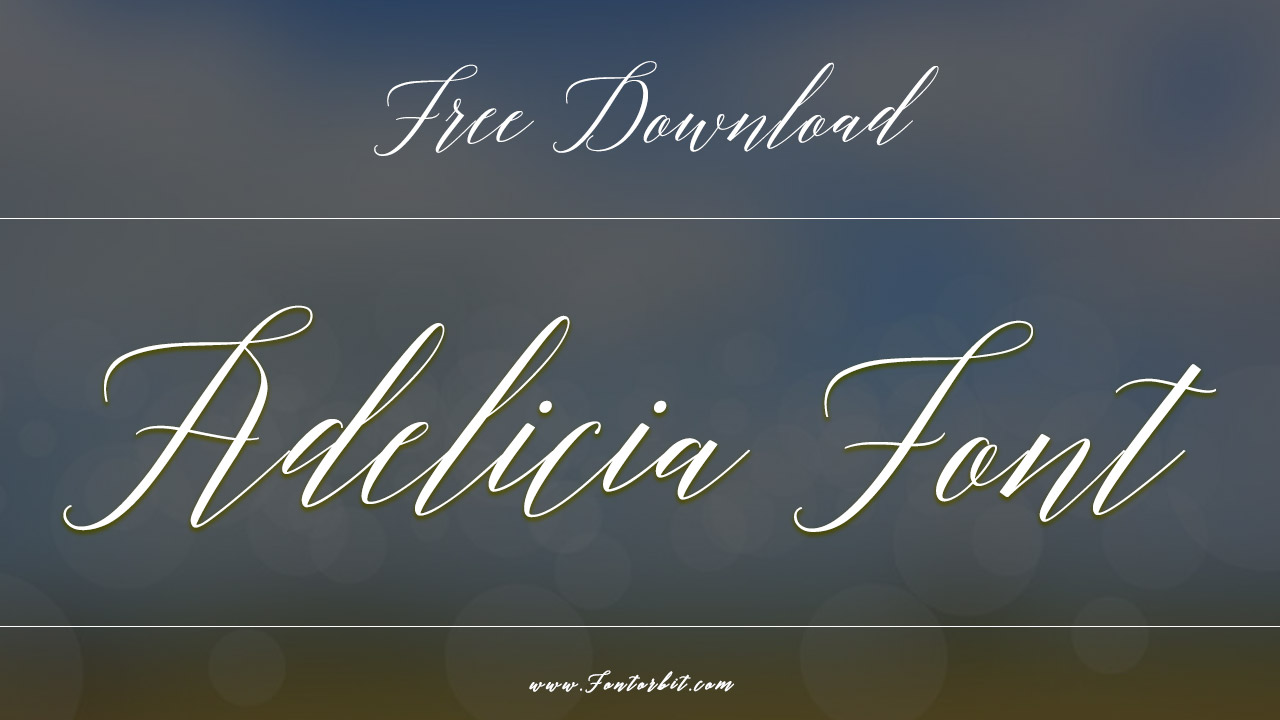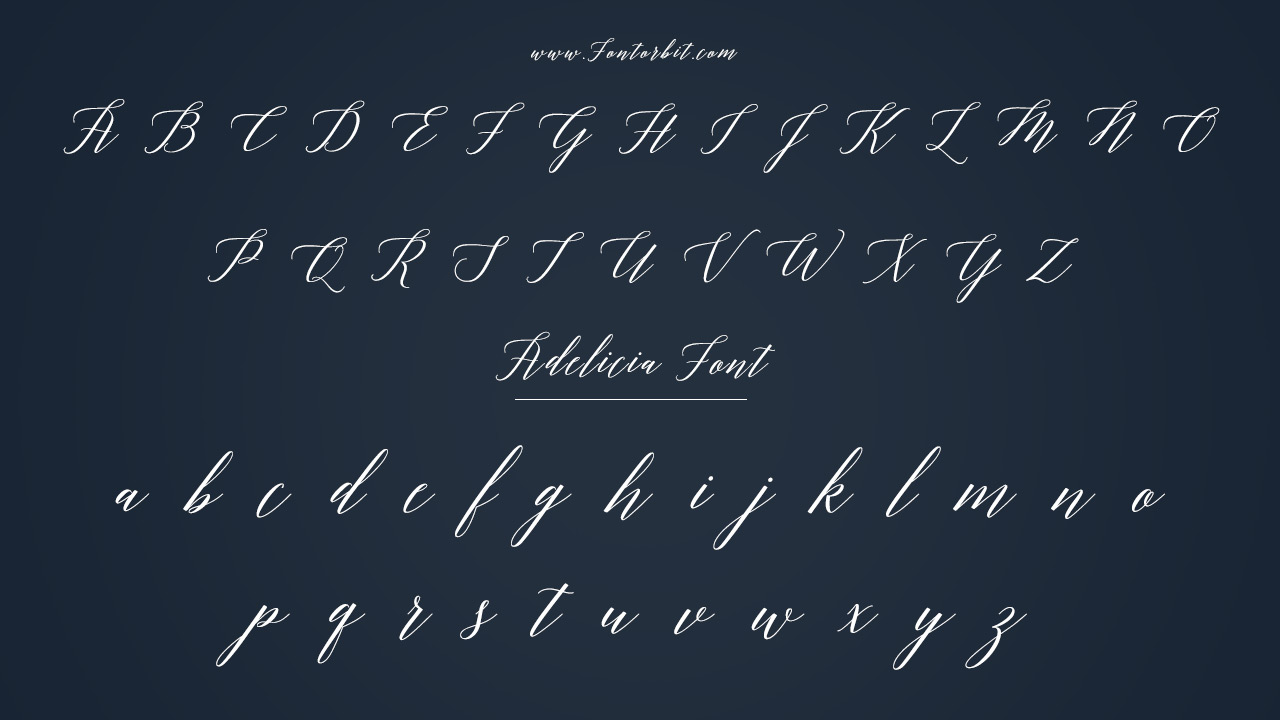
Adelicia Font is a stylish and elegant script typeface designed by Seniors Studio and released in 2015. Known for its flowing strokes and versatile italic styles, it’s a great choice for projects requiring sophistication and modern aesthetics.
The Adelicia Font Family includes 8 styles and supports multiple languages, making it a perfect solution for both personal and commercial projects.
- Font Information
- Font Family: 8 italic styles, including Light, Bold, ExtraBold, Ultra, and more
- Uses: Ideal for logos, branding, wedding invitations, signage, website design, and formal documents
- Features: 565+ glyphs, multiple language support, OpenType stylistic alternates
- Font Pairings: Pairs well with Kiona, Quilline Script Thin, and modern handwritten fonts
| Style | Calligraphy, Script Typeface |
| Designer | Seniors Studio |
| Type | Stylish Calligraphy Font |
Font Family Includes
The Adelicia Font Family comes with eight stunning italic styles:
- Adelicia Light Italic
- Adelicia Book Italic
- Adelicia Medium Italic
- Adelicia SemiBold Italic
- Adelicia Bold Italic
- Adelicia ExtraBold Italic
- Adelicia Heavy Italic
- Adelicia Ultra Italic
Where Adelicia Font Is In Use
Adelicia Font has found applications in a wide variety of creative and professional projects:
- Logos for branding and product packaging.
- Stylish letterheads and professional signatures.
- Posters, headings, and signage for promotional materials.
- Wedding invitations and greeting cards.
- Modern website templates and web design projects.
- Unique designs for labels and stationery.
- Resumes, invoices, and other formal documentation.
Font Pairing Options
Adelicia pairs beautifully with:
- Kiona Font: For a contemporary and balanced look.
- Quilline Script Thin Font: To enhance the calligraphic effect.
- Modern Fonts: Western fonts or handwritten fonts to complement the style.
Key Features Of Adelicia Font
- 565+ Amazing Glyphs: Includes initial and terminal letters, punctuations, numbers, symbols, and alternate characters.
- Multiple Language Support: Perfect for global audiences.
- Versatile Styles: Supports bold, light, medium, and ultra weights for endless design possibilities.
- Great Font for Designers: Ideal for both digital and print media.
1.What Is Adelicia Font Best Used For?
Adelicia Font is ideal for logos, headings, wedding invitations, posters, and branding materials.
2.Does Adelicia Font Support Multiple Languages?
Yes, it offers multiple language support, including special characters.
4.How Can I Access Alternate Characters?
Use OpenType Stylistic Alternates through software like Adobe Illustrator or Font Book.
6.Can I Use Adelicia Font On A Website?
Yes, it’s suitable for modern website templates and web design.
7.Does Adelicia Font Include Uppercase And Lowercase Letters?
Yes, it includes uppercase letters, lowercase letters, and stylistic alternates.
8.What Are Some Good Pairing Fonts For Adelicia?
Fonts like Kiona and handwritten fonts pair well with Adelicia.
9.How Many Styles Does Adelicia Font Family Have?
It includes 8 italic styles ranging from Light Italic to Ultra Italic.